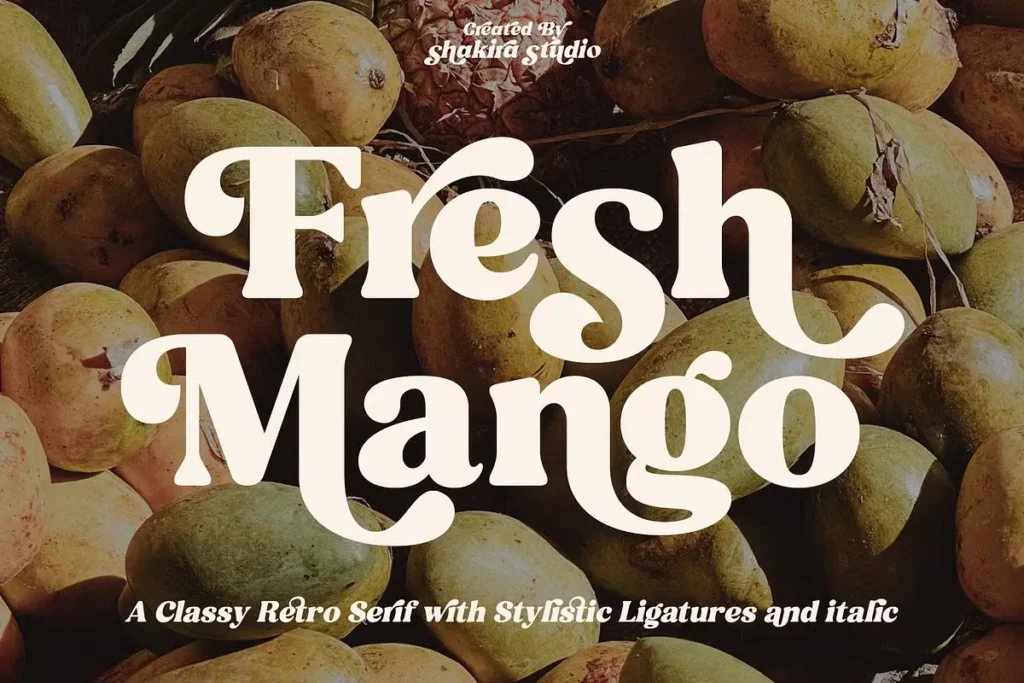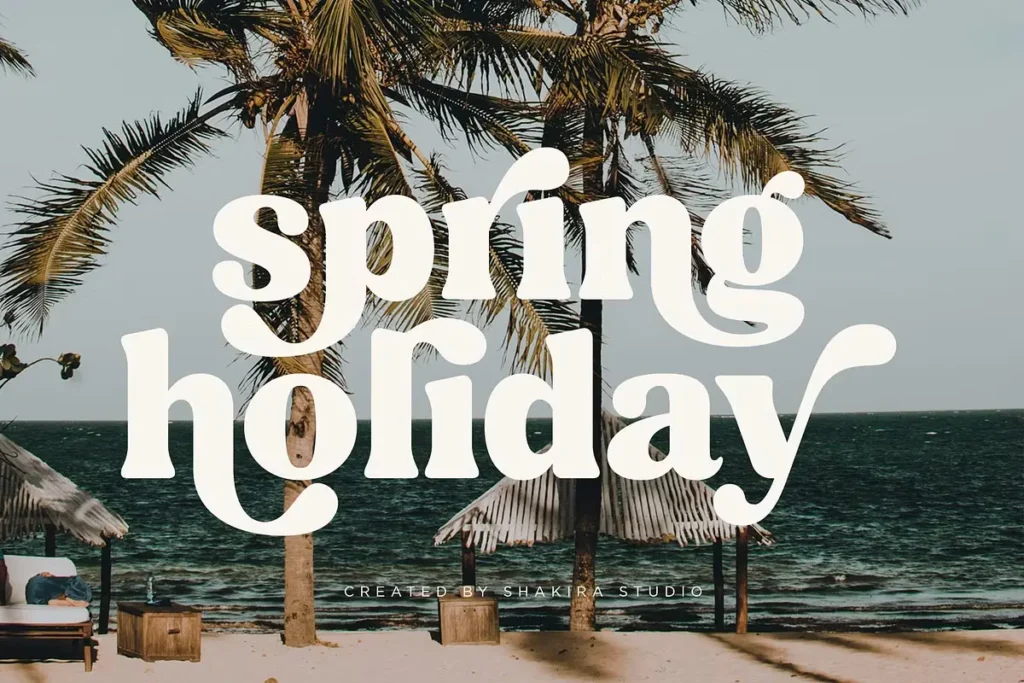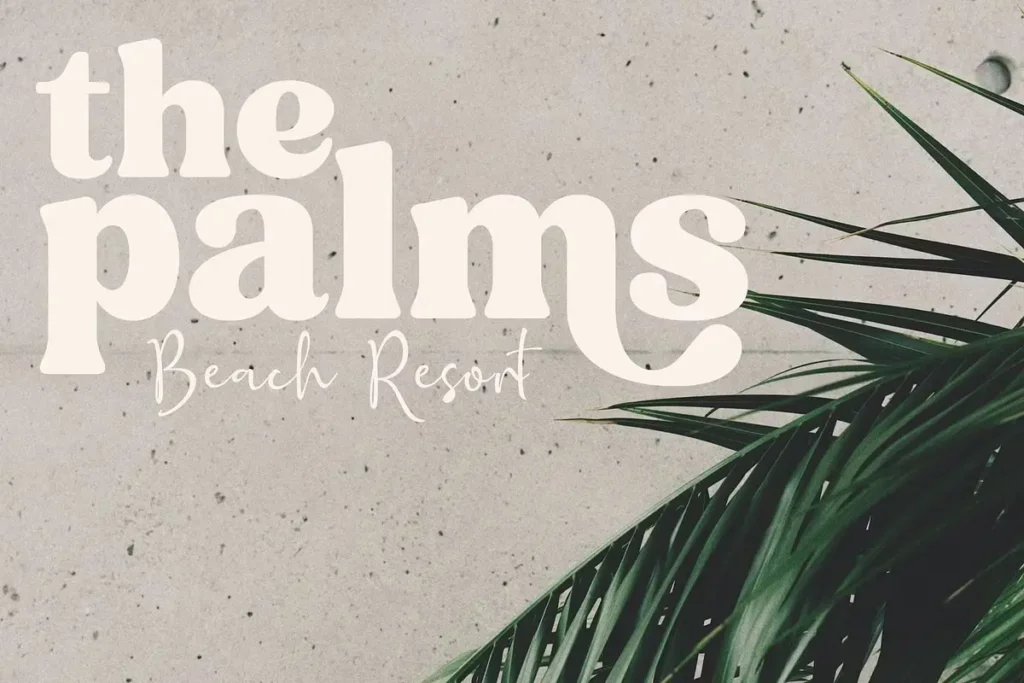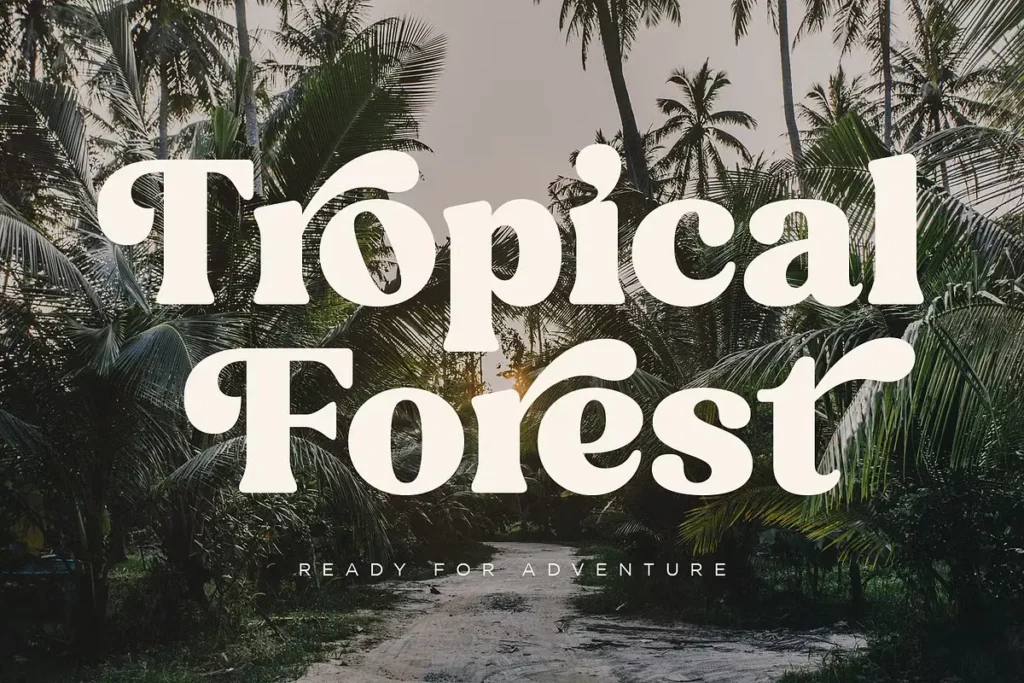
About Fresh Mango Font
I stumbled across Fresh Mango Font while hunting for the perfect font for a client’s coffee shop rebrand. As a typographer and graphic designer for over 8 years, I’m always looking for fonts with personality. This retro serif caught my eye immediately! I’ve now used it on three major branding projects, including a wedding stationery line that my clients absolutely loved. The vintage flair worked perfectly for their aesthetic.
What makes Fresh Mango special? Those contrasting thick and thin lines give it such a distinct look. I’m sharing this review because good fonts deserve recognition, and this one has become a secret weapon in my design toolkit.
The Designer Shakira Studio
Fresh Mango Font by Shakira Studio, a boutique design house known for creating typefaces with unique character. This retro serif font combines vintage charm with modern usability – not an easy balance to strike!
The typeface features elegant curved terminals and varying line weights that create visual interest without sacrificing readability. Unlike many decorative fonts that work only for headers, Fresh Mango remains legible even in smaller sizes, making it versatile for different design applications.
Shakira Studio clearly understood what designers need. The font includes complete uppercase and lowercase letters with carefully crafted glyphs. Each character feels thoughtfully designed, with special attention to how letters flow together. The retro style inspiration shines through in subtle ways – like the slightly rounded edges and distinctive serifs that evoke mid-century design without feeling like a gimmick.
Features of Fresh Mango Font
What truly sets Fresh Mango apart are its sophisticated OpenType features like ligatures and stylistic alternates that transform ordinary text into polished, professional typography. The font includes a full set of modern uppercase characters that create bold, gorgeous headlines with a vintage flair. The beautiful combination of modern uppercase and lowercase letters gives you versatility for any design project, from magazine covers to social media graphics.
Beyond the basic alphabet, Fresh Mango offers comprehensive punctuation, numeral, and multilingual symbols support. The impressive language coverage spans 25 languages including English, French, German, and Spanish, making this font ideal for global brands and international projects.
Where Can You Use This Retro Serif Font?
Fresh Mango Regular truly shines in countless design applications! For logos and brand identities, this logo font creates an unforgettable impression with its distinctive personality. I recently used it for a boutique hotel logo where the distinctive style perfectly captured their upscale yet approachable aesthetic. As Mango is a retro serif, it brings a timeless quality to any branding project.
Wedding invitations look absolutely stunning with Fresh Mango. The elegant curves and vintage flair create a sophisticated feel that works beautifully for formal events. The italic version adds a touch of romance to save-the-dates and thank you cards, delivering an elegant look that’s perfect for special occasions.
This modern retro font elevates advertising materials too. Whether for print, digital marketing, or social media graphics, Fresh Mango adds character without overwhelming the message. Its contrasting lines and curved terminals give a sleek, elegant serif font appearance to quotes, advertisements, and more. I recently designed an advertisement for a local business using this branding font, and it immediately caught attention while maintaining excellent readability.
The font works wonderfully on websites, mobile apps, and even ebooks. Its clean lines ensure it displays well on screens of all sizes, from iOS to Android devices. Fresh Mango also pairs beautifully with simple sans-serif fonts for balanced, professional designs across PDF documents, EPUB publications, and SVG graphics. This versatile elegant font creates bold, gorgeous headlines and designs with a vintage flair that works across numerous platforms.